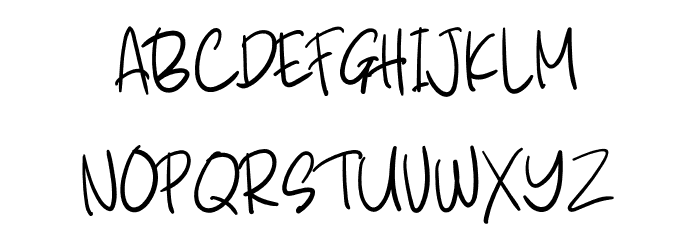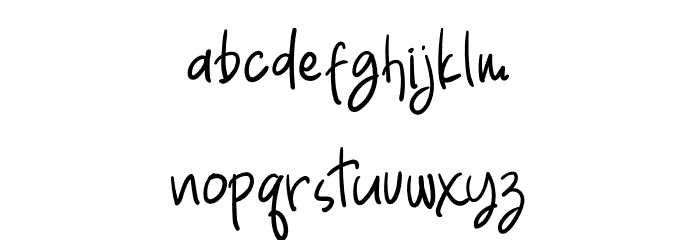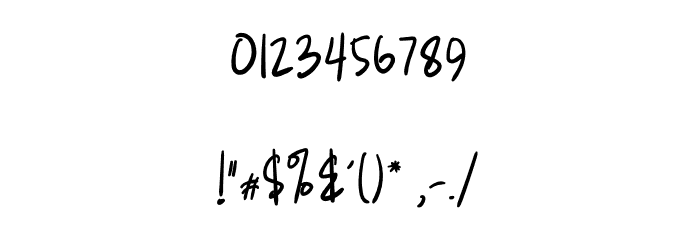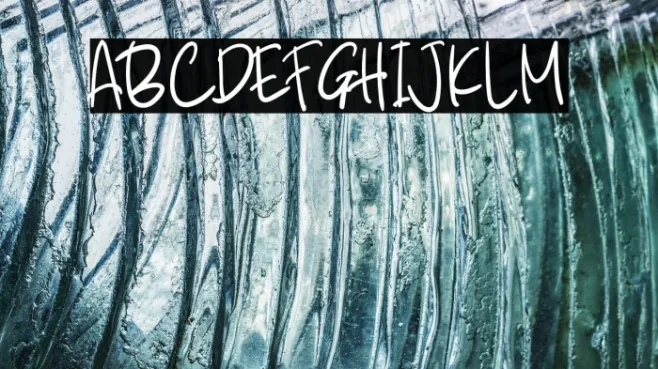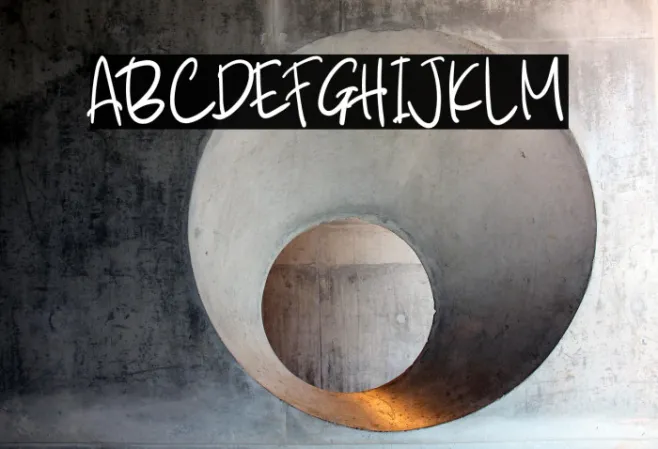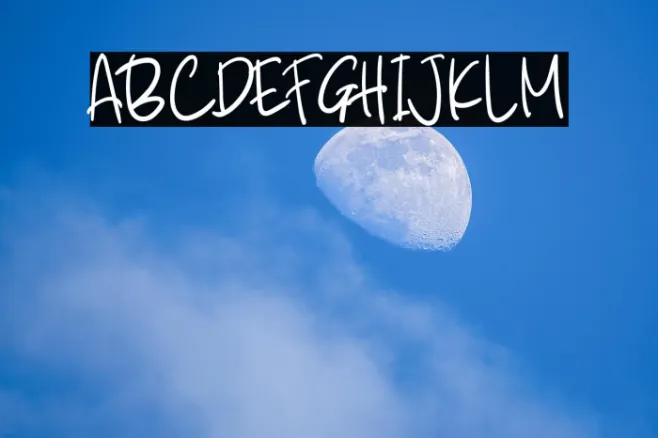
Bear Butter Font
This font features a playful and casual handwritten style, characterized by its smooth, flowing lines and slightly irregular shapes. The uppercase letters are bold and dynamic, while the lowercase letters maintain a consistent, friendly appearance. The numerals and special characters complement the overall style, adding to its informal and approachable feel. This font is perfect for projects that require a personal touch, such as invitations, greeting cards, or creative branding. Its unique charm and legibility make it suitable for both digital and print media.
A playful, casual handwritten font with smooth, flowing lines.
- Font: Bear Butter
- Proposed Projects: Ideal for invitations, greeting cards, creative branding, and personal projects.
- Category: Handwritten
- Overall Style: Casual, Playful
- Use Case: Headlines, Logos, Invitations